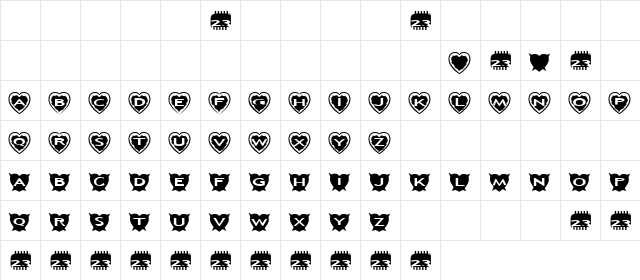
Zone23_Two Kinds of Love IV Normal
Zone23_Two Kinds of Love IV is a composed and adaptable typeface that performs quietly and consistently across a wide range of design contexts.